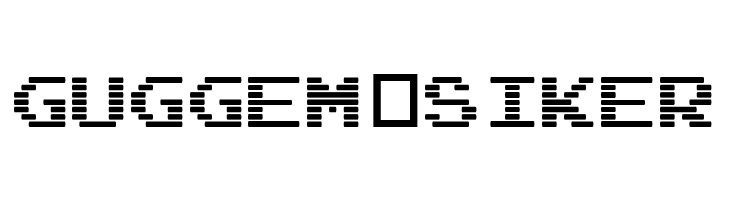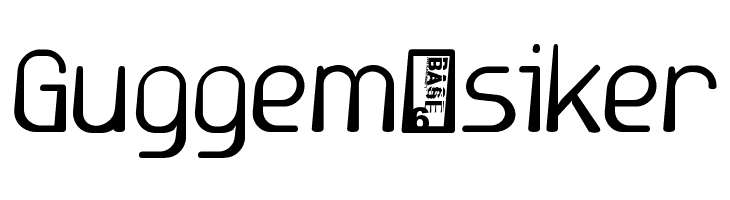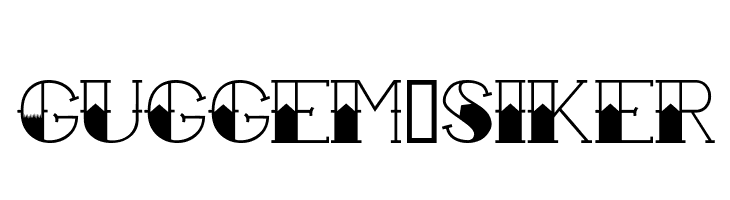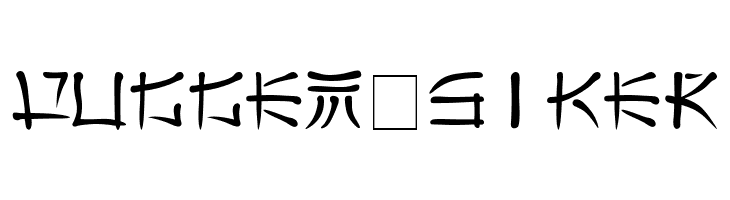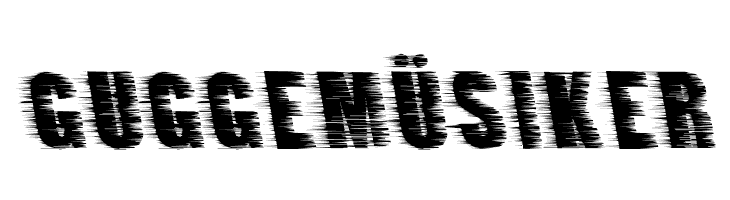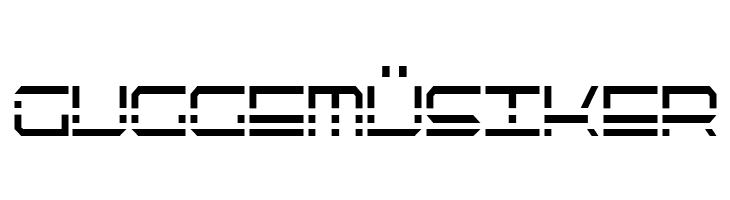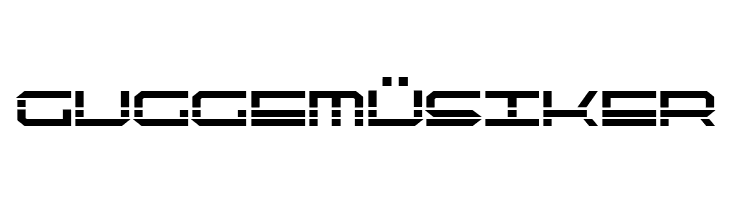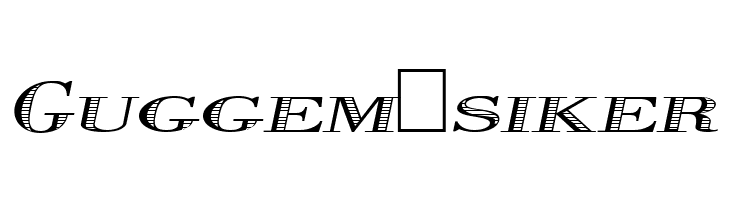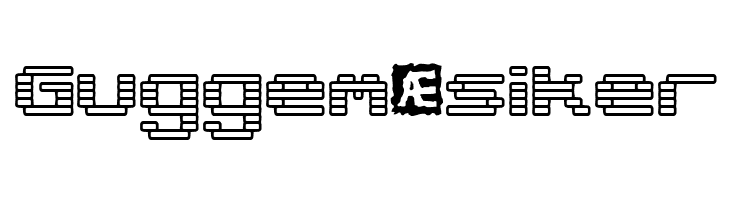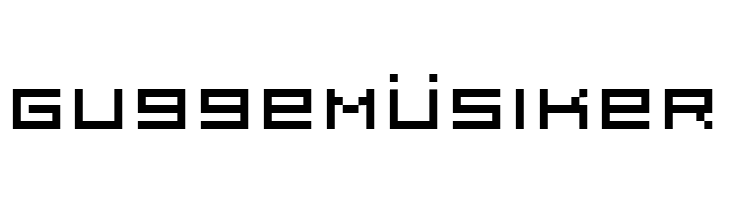
A bold, modern font with a digital, Y2K-inspired aesthetic.
A bold, geometric font with rounded corners and a modern, futuristic style.
A modern, monospaced font with a geometric and rounded design.
A bold, decorative font with a stencil-like, industrial design.
A brush-like, calligraphy-inspired font with dynamic strokes and an exotic aesthetic.
A bold, distressed font with a glitch-like effect, ideal for tech-inspired designs.
A futuristic, segmented font with a digital display style.
A futuristic, segmented font with a bold, digital aesthetic.
A segmented, geometric outline font with a modern and playful style.
A pixelated, monospaced font with a retro digital style.
A bold, eclectic font with cryptic symbols and artistic embellishments.
A bold, geometric font with a striped, futuristic design.
A bold, geometric font with high contrast and unique character shapes.
A bold, futuristic font with angular, dynamic letterforms.
A futuristic, italicized font with a striped, dynamic design.
A modern, pixelated font with bold, segmented characters ideal for tech and digital themes.
A bold, geometric font with angular lines and decorative cutouts.
A futuristic, segmented font with a bold, digital aesthetic.
A bold, striped font with a modern and dynamic design.
A pixelated, digital-style font inspired by LED displays.
A modern, striped font with a digital and futuristic design.
A bold, high-contrast italic font with dynamic and elegant styling.